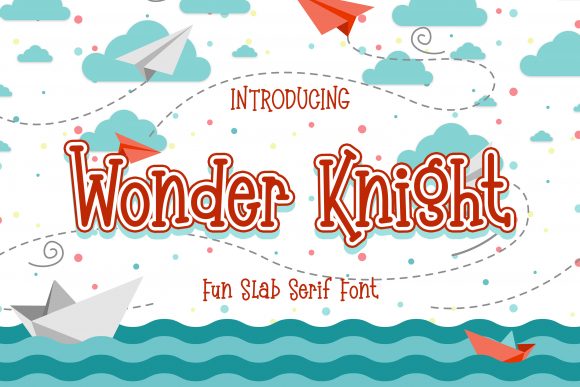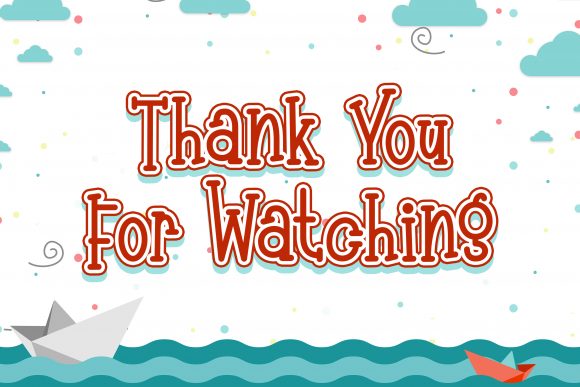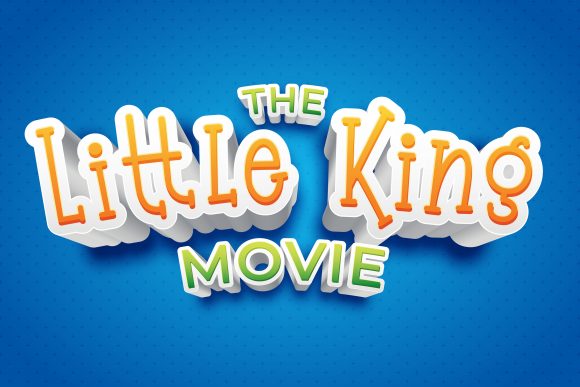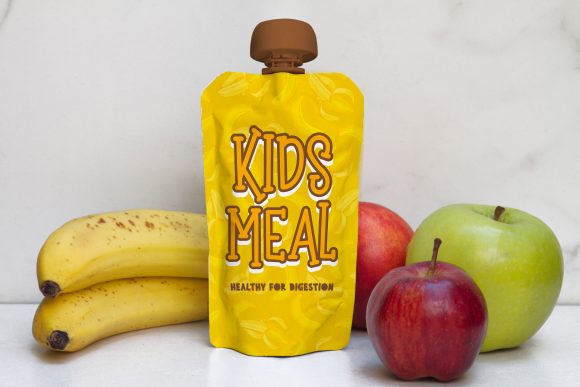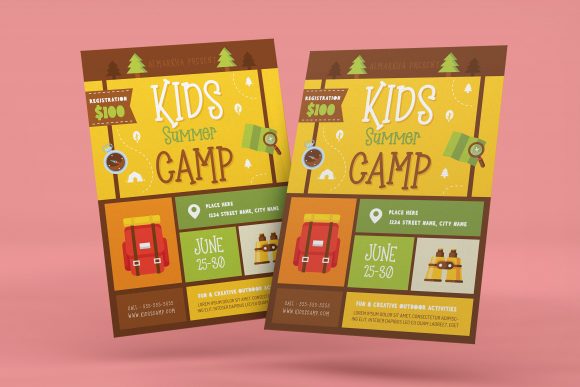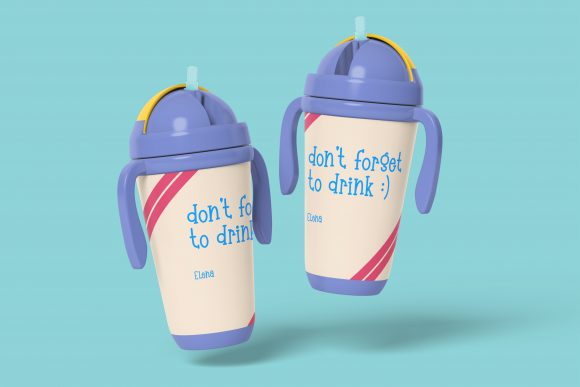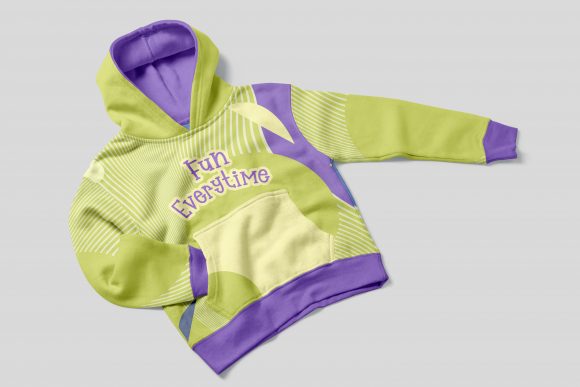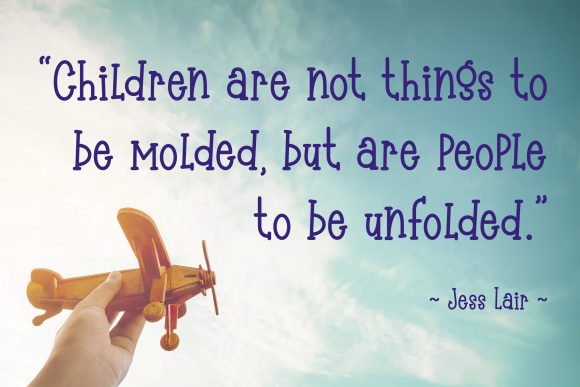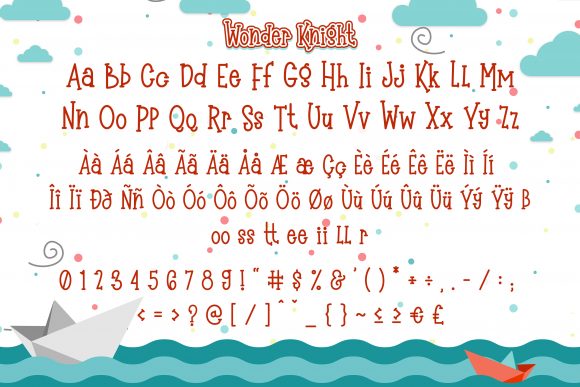
Wonder Knight
Wonder Knight: A Cool and Playful Slab Serif Font
Wonder Knight is a distinctive slab serif font that combines coolness with quirky and playful elements. This whimsical typeface offers designers a charming tool for creating impactful typography that can brighten up various design projects.
Key Features of Wonder Knight
• Cool Design: Features a trendy and appealing appearance
• Quirky Character: Incorporates unique and unconventional elements for added personality
• Playful Aesthetic: Offers a fun and engaging look
• Whimsical Style: Brings a sense of wonder and imagination to designs
• Friendly Appearance: Creates an approachable and inviting atmosphere
• Slab Serif Structure: Maintains the characteristic thick, rectangular serifs typical of slab serif fonts
Ideal Uses for Wonder Knight
Wonder Knight’s unique characteristics make it particularly well-suited for:
• Children’s book typography
• Playful branding and logo design
• Cheerful packaging design
• Fun social media graphics
• Whimsical advertising campaigns
• Creative educational materials
When incorporating Wonder Knight into your designs, consider the following tips:
• Use for headlines or short blocks of text to maximize its playful impact
• Experiment with different sizes to highlight the font’s quirky details
• Take advantage of its ability to brighten up designs in various projects
Wonder Knight is an excellent choice for designers looking to add a cool, quirky, and playful slab serif to their typographic toolkit. Its whimsical and friendly character makes it stand out in the world of typography. Whether you’re working on logo designs, creating layouts for children’s books, or developing branding for fun and approachable projects, Wonder Knight offers the perfect blend of coolness and playfulness.
Add Wonder Knight confidently to your projects and explore how it can bring a bright and whimsical edge to your designs. From charming headlines to friendly branding elements, this font provides the tools to create impactful and memorable typography that stands out with its unique blend of coolness and quirkiness.